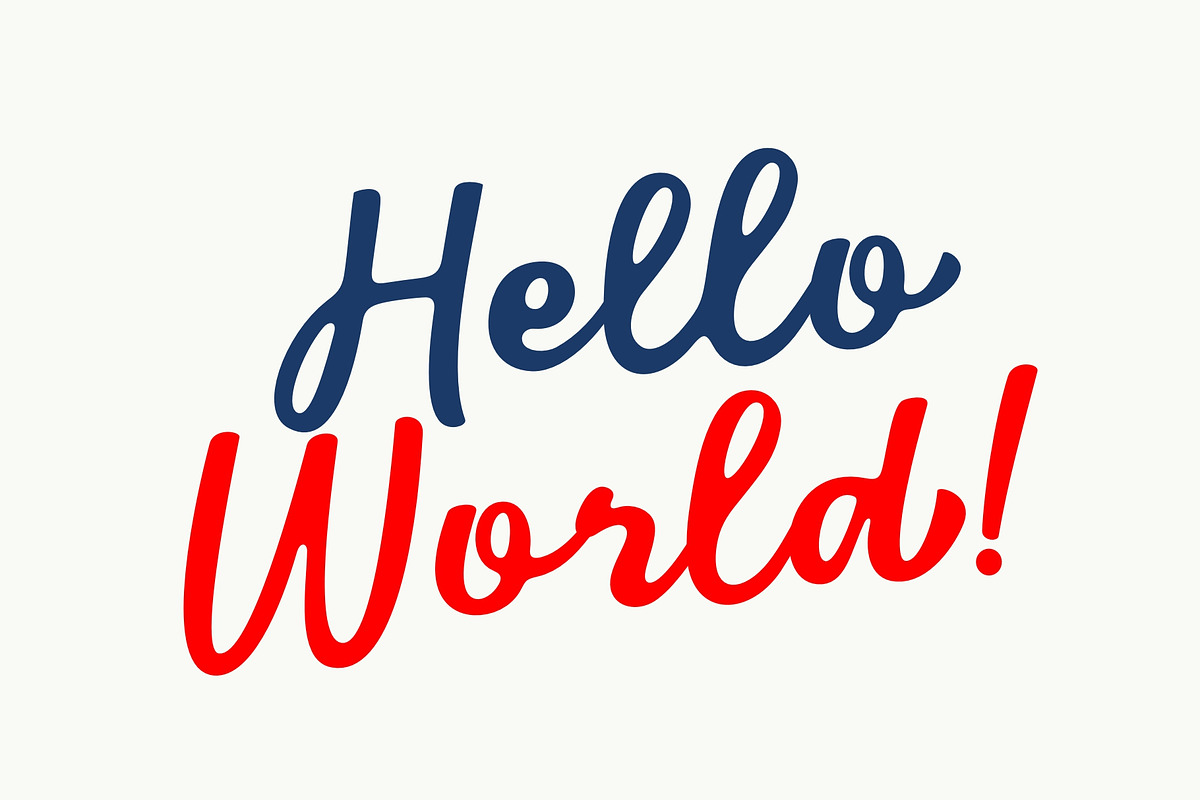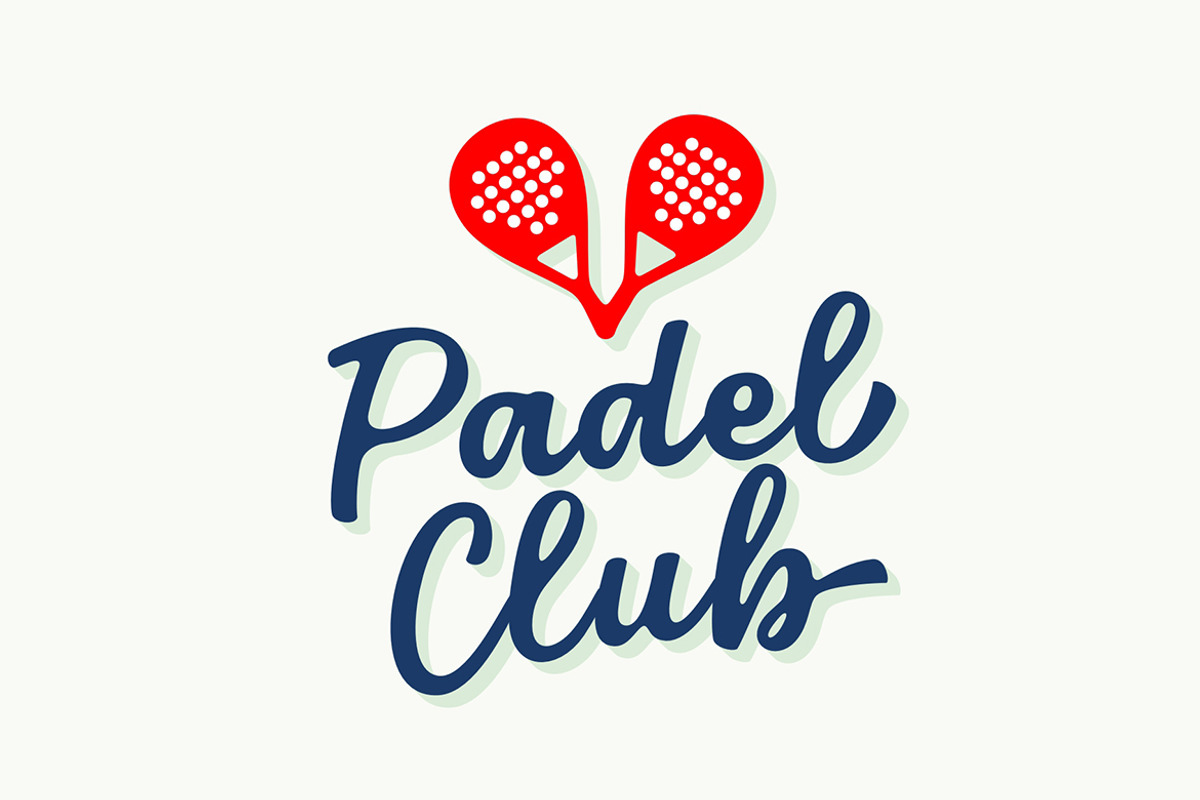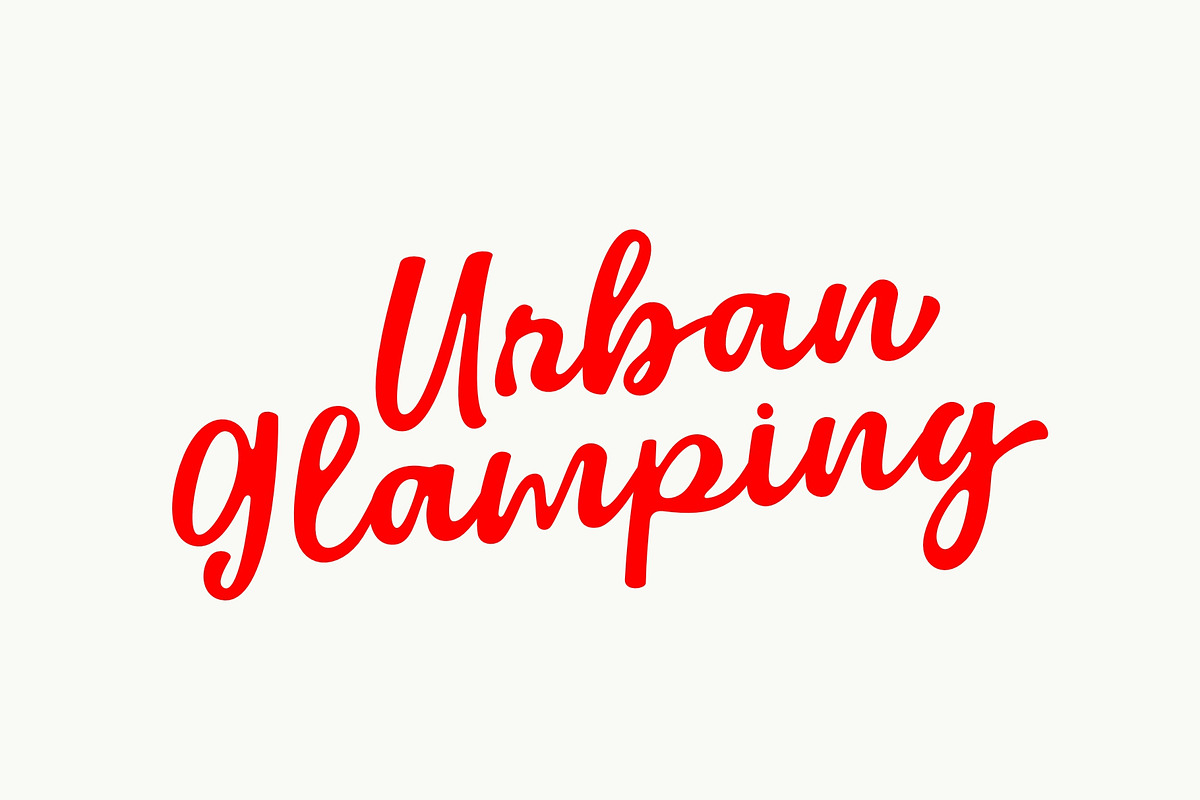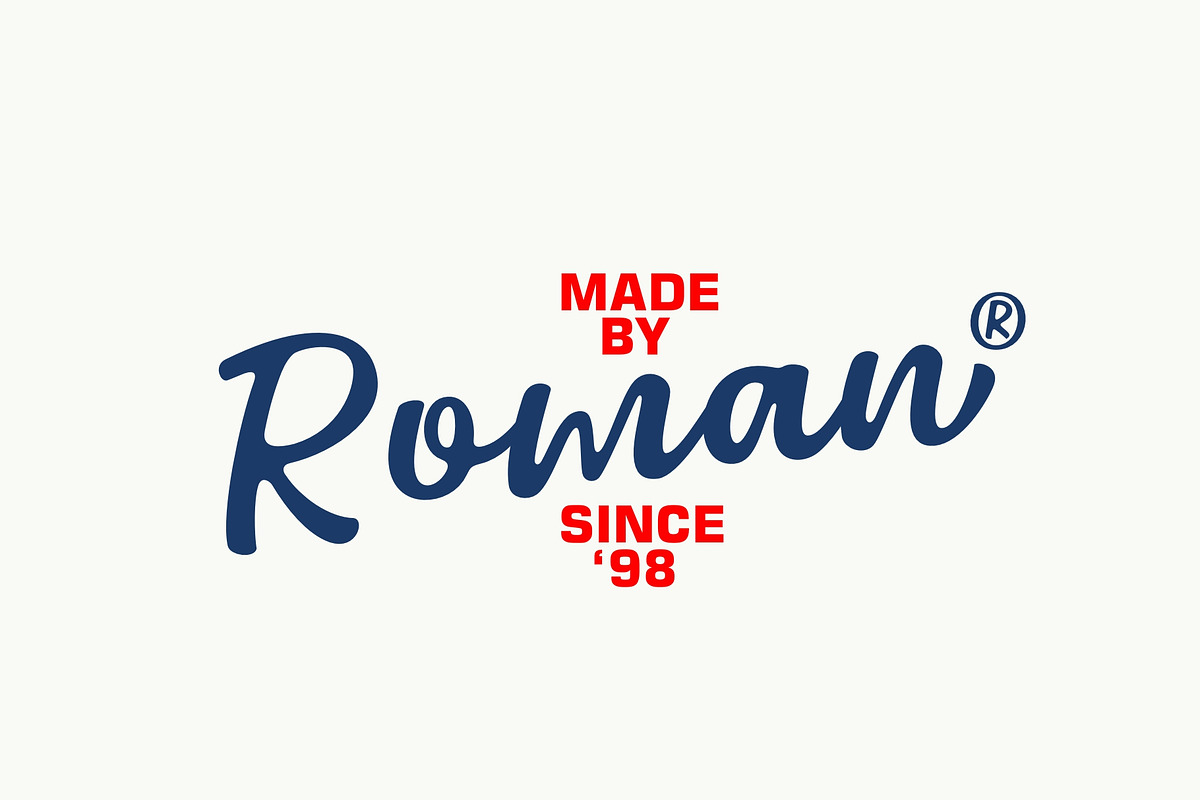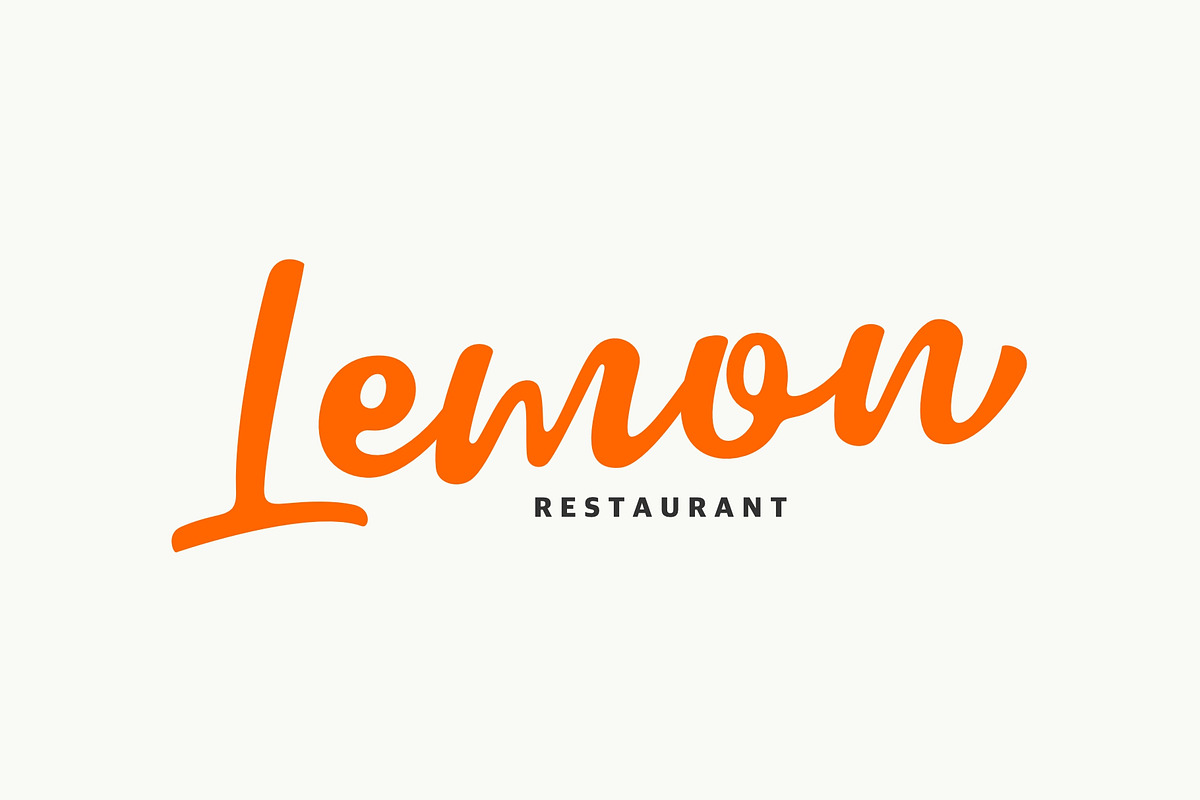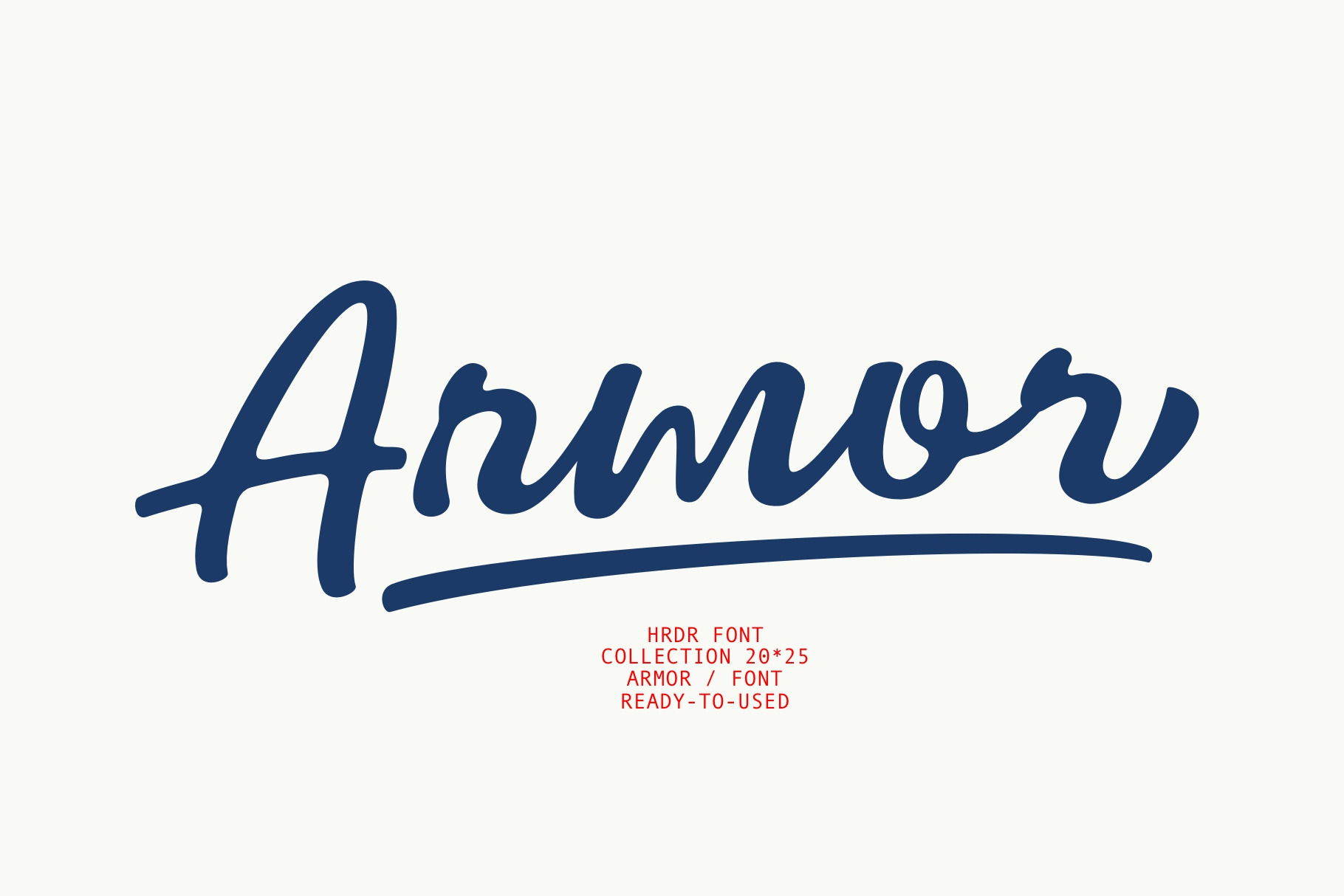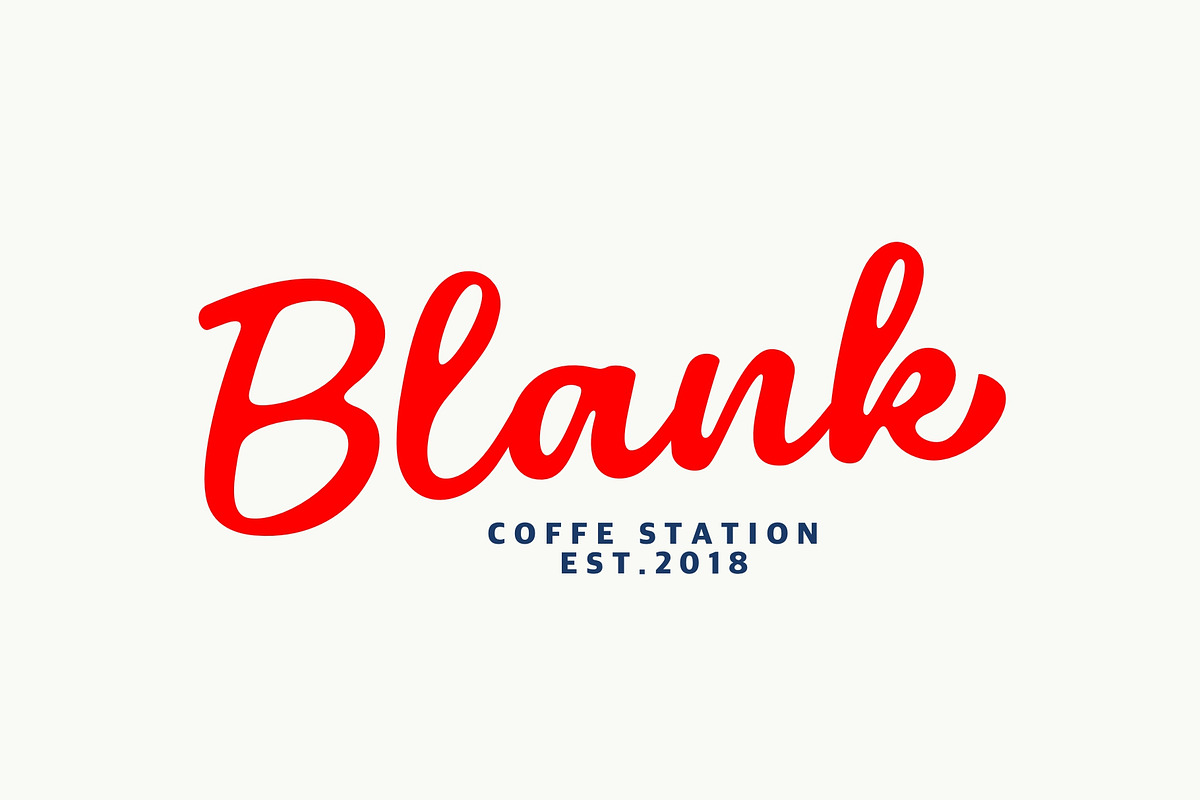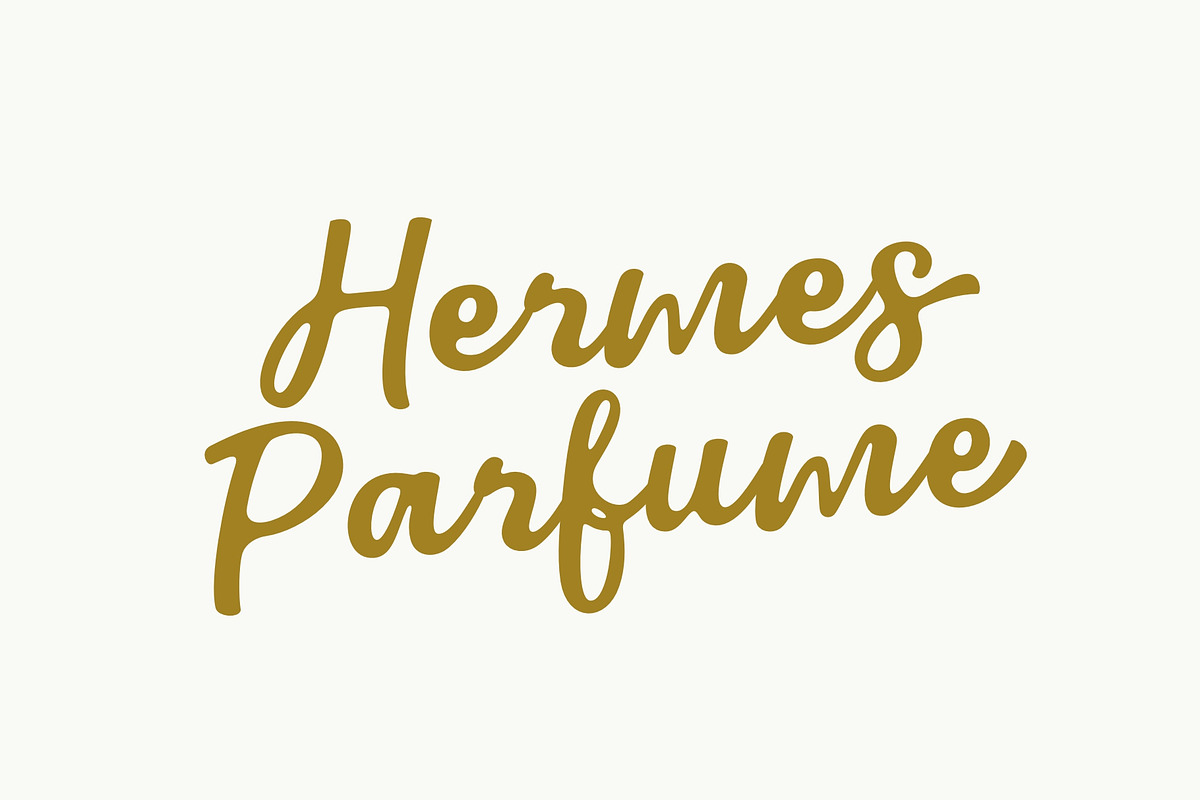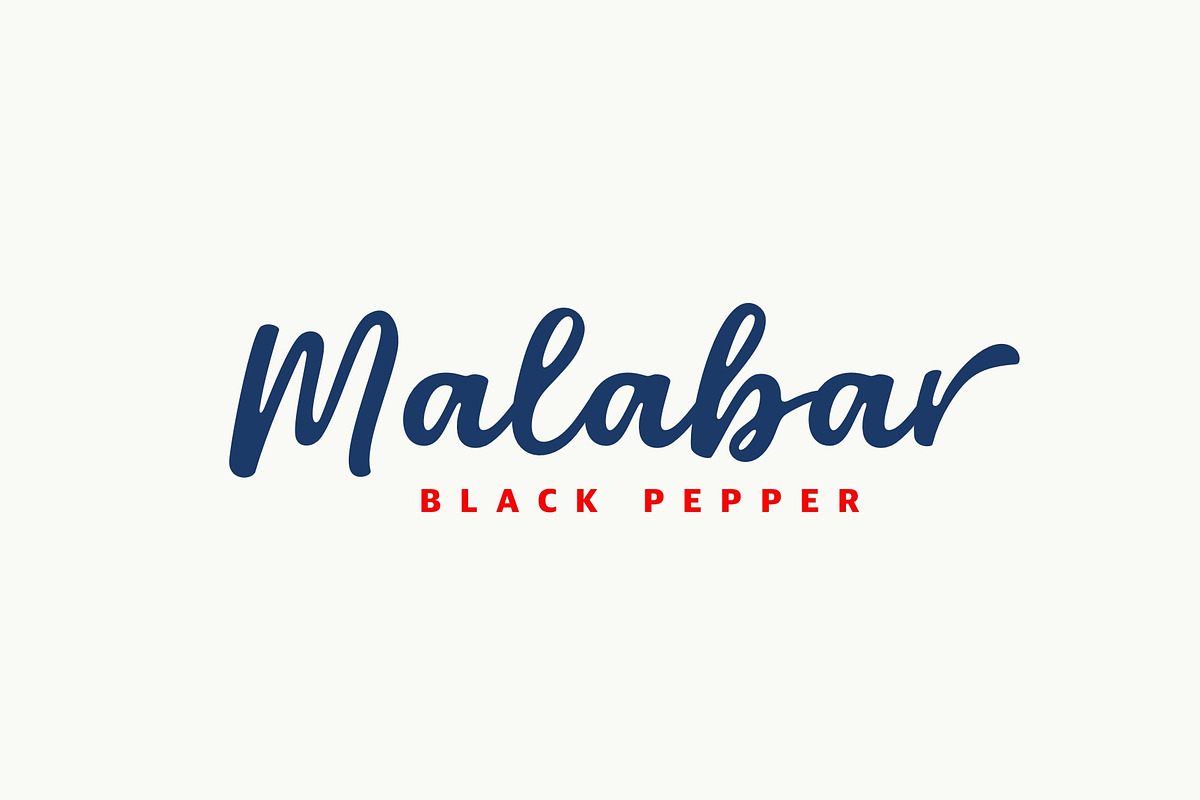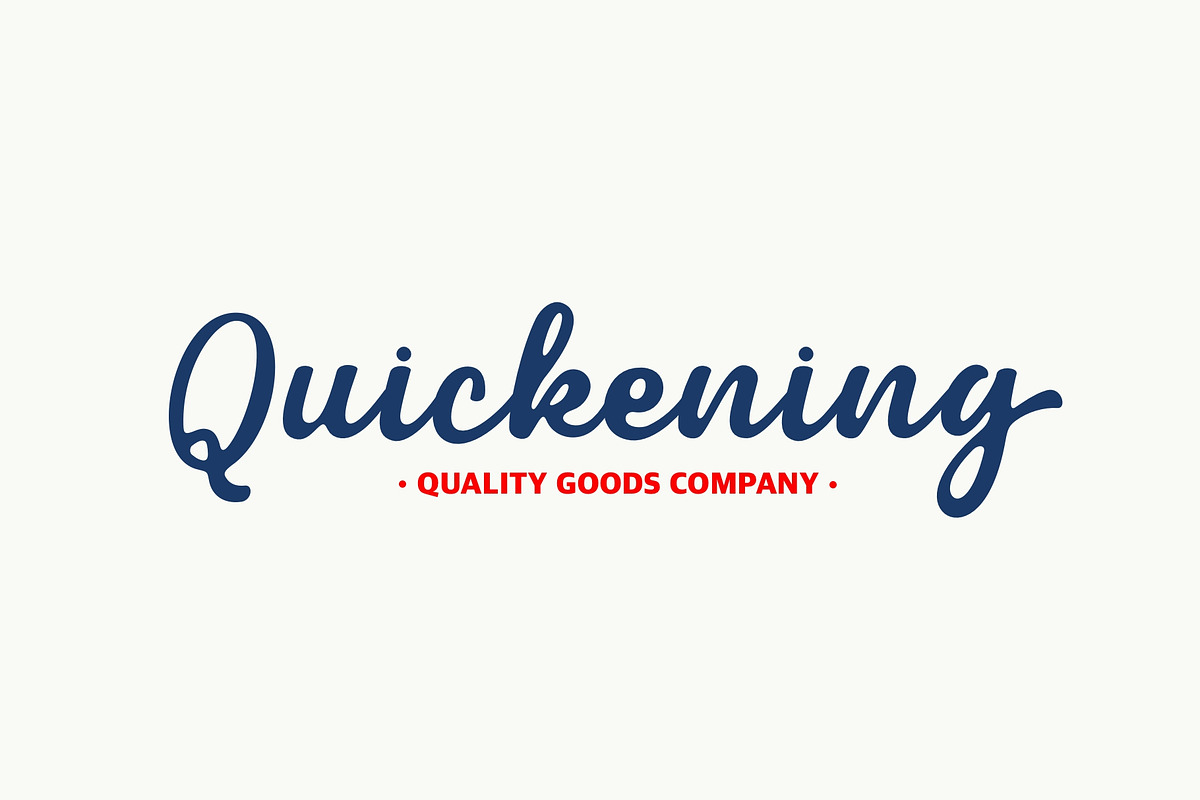
Armor - Elegant Script Font
Armor is a Elegant Script font. It's perfect for branding, wedding invitations, photography, Neon Sign, bloggers, logos, greeting cards, Logo, Quotes and more.
- numeric & Multilingual support
- Stylistic Alternates with ( Ss01, Ss02, Ss03 )